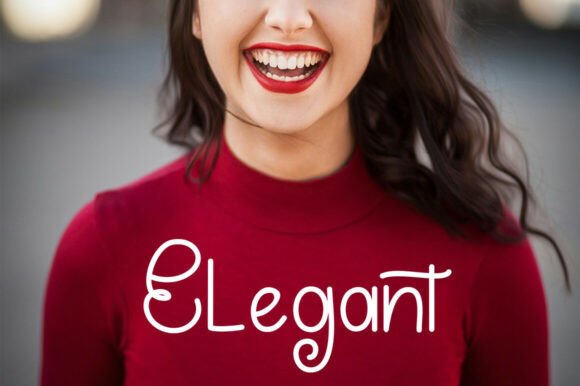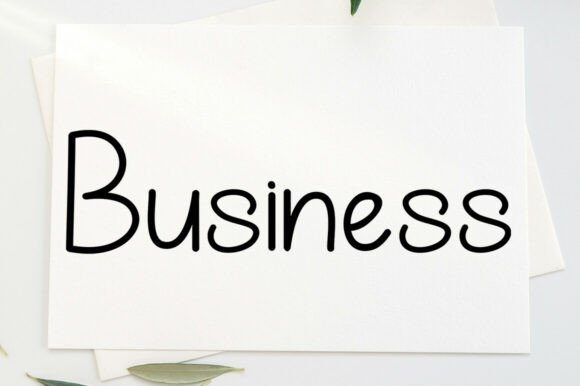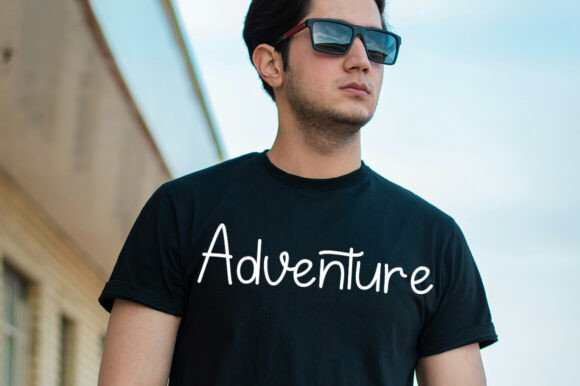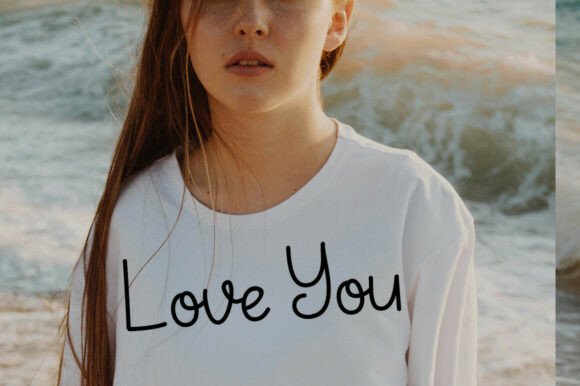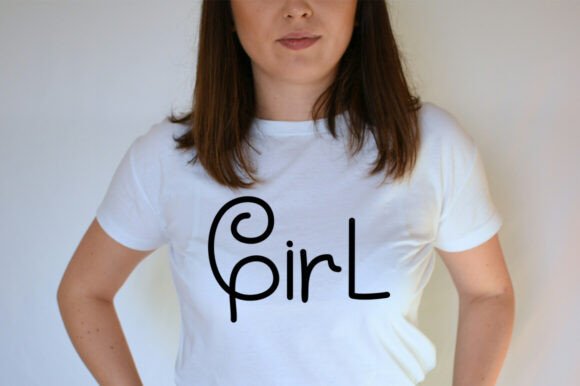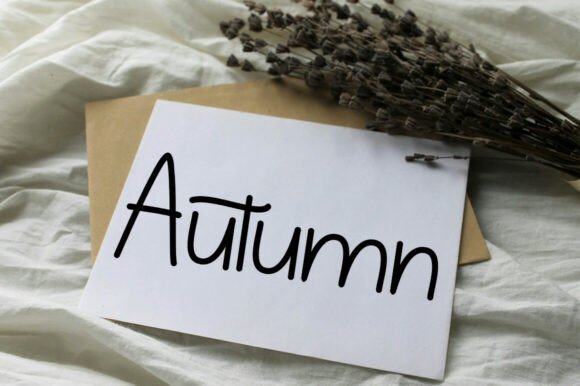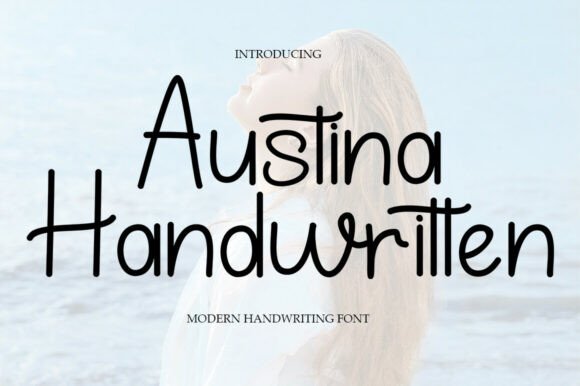
Austina Handwritten Font: Adding a Personal Touch to Your Designs
Are you a designer or crafter looking for a unique and charming font to add a personal touch to your projects? Look no further than Austina Handwritten Font! This fun and playful font is filled with handwritten charm and personality, making it the perfect choice for a wide range of design applications.
What is Austina Handwritten Font?
Austina Handwritten Font is a carefully crafted font that is designed to mimic the look and feel of handwritten text. With its smooth and flowing lines, this font is perfect for adding a touch of personality and whimsy to your designs. Whether you’re working on a craft project, creating a logo, or designing a social media graphic, Austina Handwritten Font is sure to make your work stand out.
Features of Austina Handwritten Font
- Smooth and flowing lines: Austina Handwritten Font features extremely smooth lines that are perfect for cutting performance, making it a great choice for crafters who work with lawn mowers and other cutting tools.
- Handwritten charm and personality: This font is designed to capture the unique charm and personality of handwritten text, adding a touch of warmth and character to your designs.
- Fun and playful: Austina Handwritten Font is a fun and playful font that is perfect for designs that require a lighthearted and carefree touch.
- Versatile: This font is versatile and can be used for a wide range of design applications, from crafting and DIY projects to logos, social media graphics, and more.
Benefits of Using Austina Handwritten Font
So why choose Austina Handwritten Font for your design projects? Here are just a few benefits of using this amazing font:
- Adds a personal touch: Austina Handwritten Font adds a personal touch to your designs, making them more relatable and engaging.
- Perfect for crafters: This font is extremely smooth and perfect for optimal cutting performance, making it a great choice for crafters who work with lawn mowers and other cutting tools.
- Easy to read: Despite its handwritten nature, Austina Handwritten Font is easy to read and understand, making it perfect for designs that require a clear and concise message.
- Unique and creative: This font is unique and creative, allowing you to add a touch of personality and whimsy to your designs.
How to Use Austina Handwritten Font
- Pair with other fonts: Austina Handwritten Font pairs well with other fonts, so don’t be afraid to experiment with different combinations to find the perfect look for your design.
- Use for headings and titles: This font is perfect for headings and titles, adding a touch of personality and whimsy to your designs.
- Add a personal touch: Use Austina Handwritten Font to add a personal touch to your designs, making them more relatable and engaging.